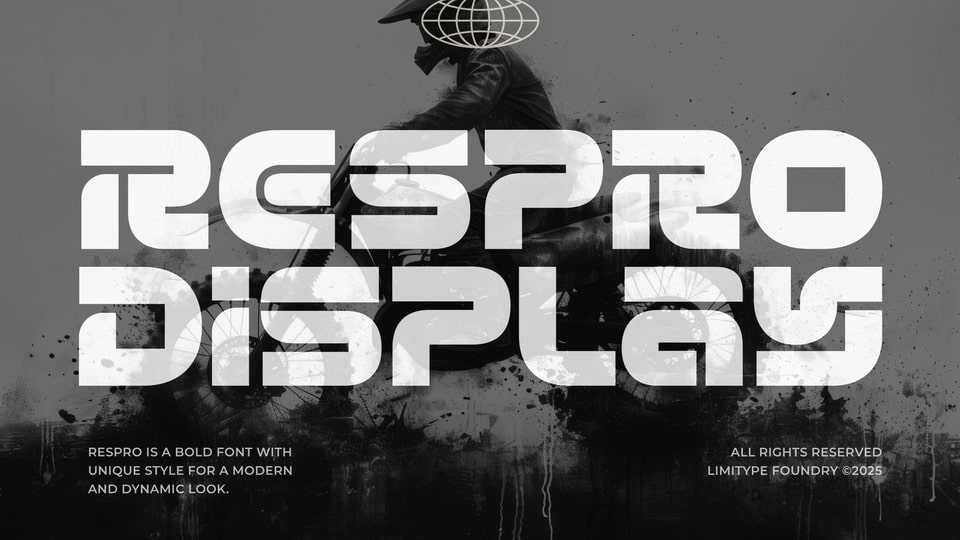
Download Respro font, a bold display typeface featuring a dynamic, rounded style that gives it a modern and professional look. Unique style details on several characters add personality and make it stand out.